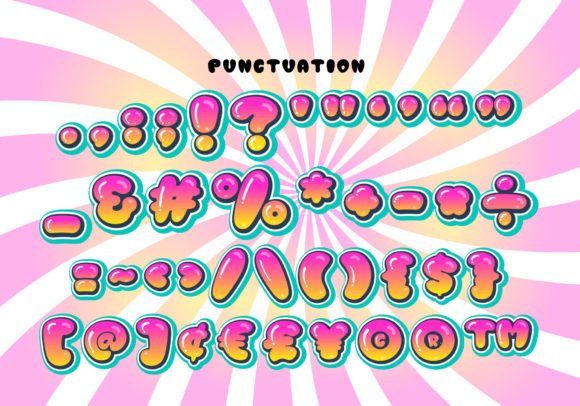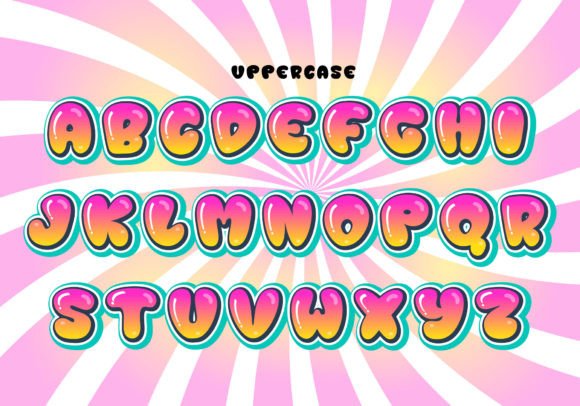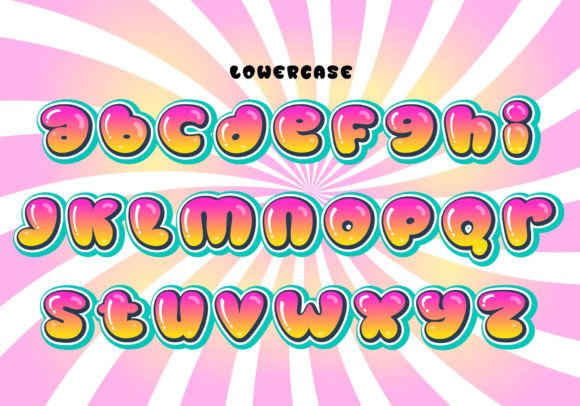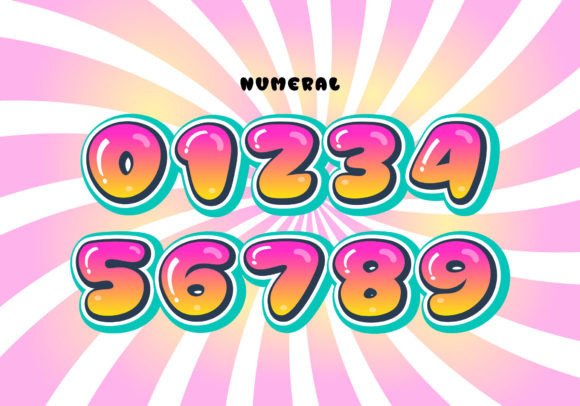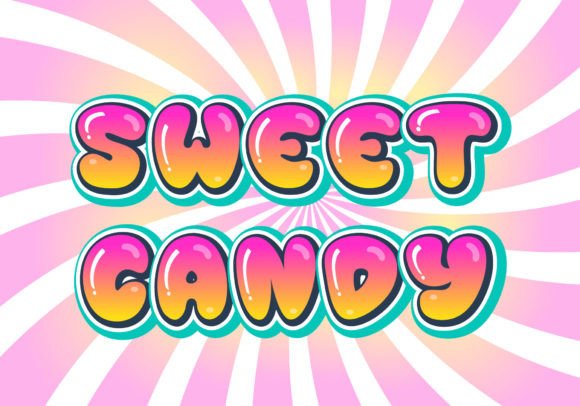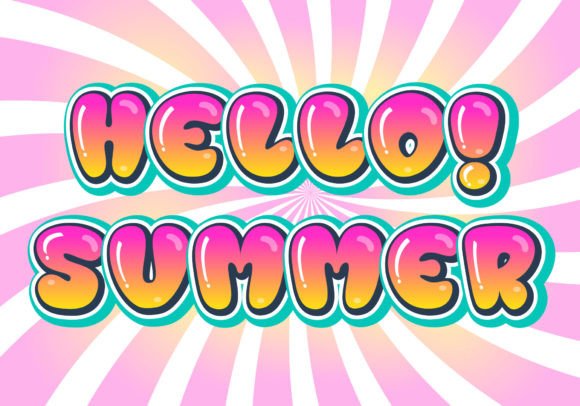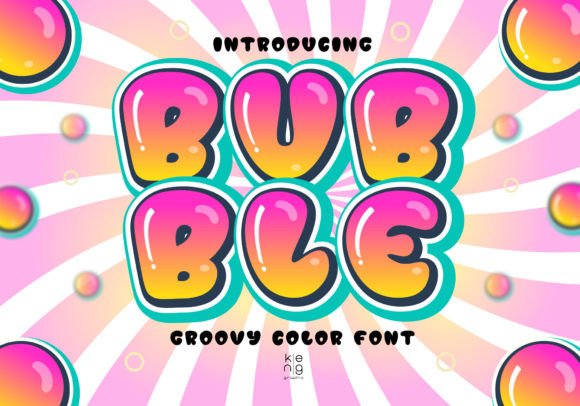
The Unmistakable Charm of Bubble Font: A Designer’s Delight
I still remember the day I stumbled upon the perfect font for a client’s branding project. It was a vibrant, playful, and bold font that screamed attention – Bubble Font had arrived, and it was love at first sight! As a designer, I’ve had my fair share of struggles finding the right font, but Bubble Font was a game-changer. Its unique blend of bright hues and chunky shapes instantly captured the essence of the brand, and I knew I had found the perfect fit.
So, what makes Bubble Font so special? Let’s dive into the good stuff and a few quirks to keep in mind:
- ✨ Unbeatable attention-grabber: Bubble Font is designed to stand out, making it perfect for logos, packaging, and designs that need a pop of personality.
- ✅ Vibrant color options: With a range of bright hues to choose from, you can easily match your brand’s color palette or create a bold contrast.
- ✅ Chunky shapes: The font’s bold, chunky shapes create a sense of playfulness and energy, perfect for designs that need a touch of whimsy.
- 🤔 Limited versatility: While Bubble Font excels in bold, attention-grabbing designs, it may not be the best fit for more minimalist or elegant projects.
- ⚠️ Legibility at small sizes: Due to its chunky design, Bubble Font may become less legible at smaller font sizes – keep this in mind when choosing font sizes.
The Story Behind Bubble Font: Designer Inspiration
While the true origins of Bubble Font remain a mystery, it’s easy to imagine a designer with a passion for playfulness and bold statements. Perhaps they were inspired by the vibrant colors and shapes of childhood, aiming to bottle that energy into a single font. Whatever the story, Bubble Font has undoubtedly captured the hearts of designers and crafters alike.
| What makes Bubble Font so attention-grabbing? | Bubble Font’s bold, chunky shapes and bright color options make it a standout choice for designs that need to demand attention. |
| Can I use Bubble Font for body text? | While possible, Bubble Font is best suited for headlines, titles, and short text snippets due to its bold design and potential legibility issues at smaller sizes. |
| Is Bubble Font suitable for professional branding? | Absolutely! Bubble Font’s unique personality makes it perfect for brands that want to stand out and showcase their playful side. |
| Can I use Bubble Font for packaging design? | Yes, Bubble Font’s bold and colorful design makes it an excellent choice for packaging projects that need to grab attention on store shelves. |